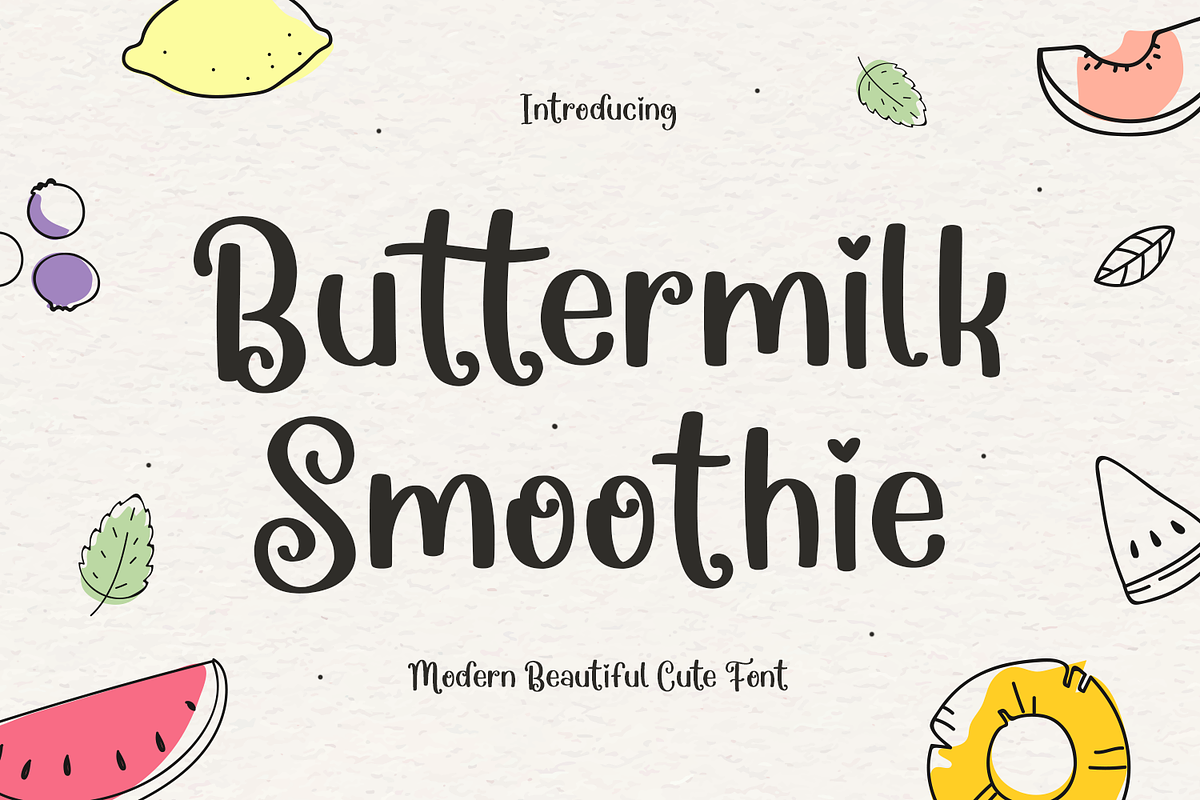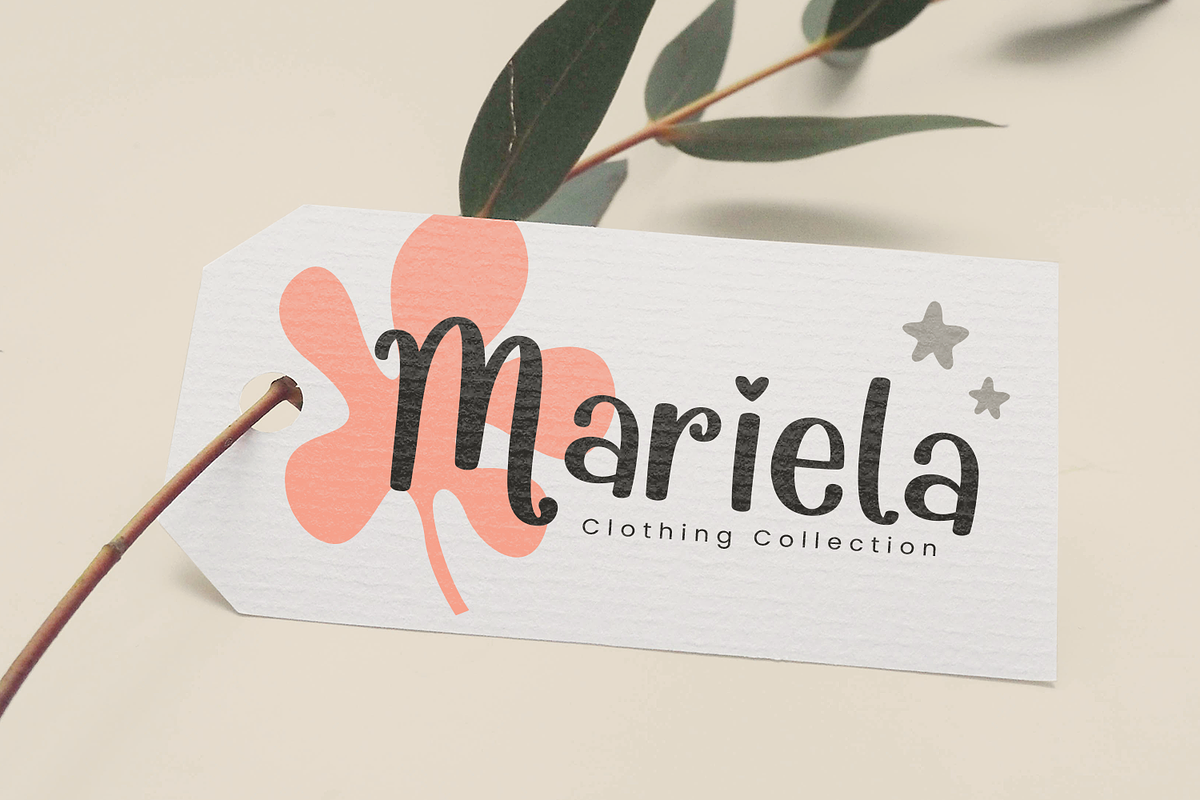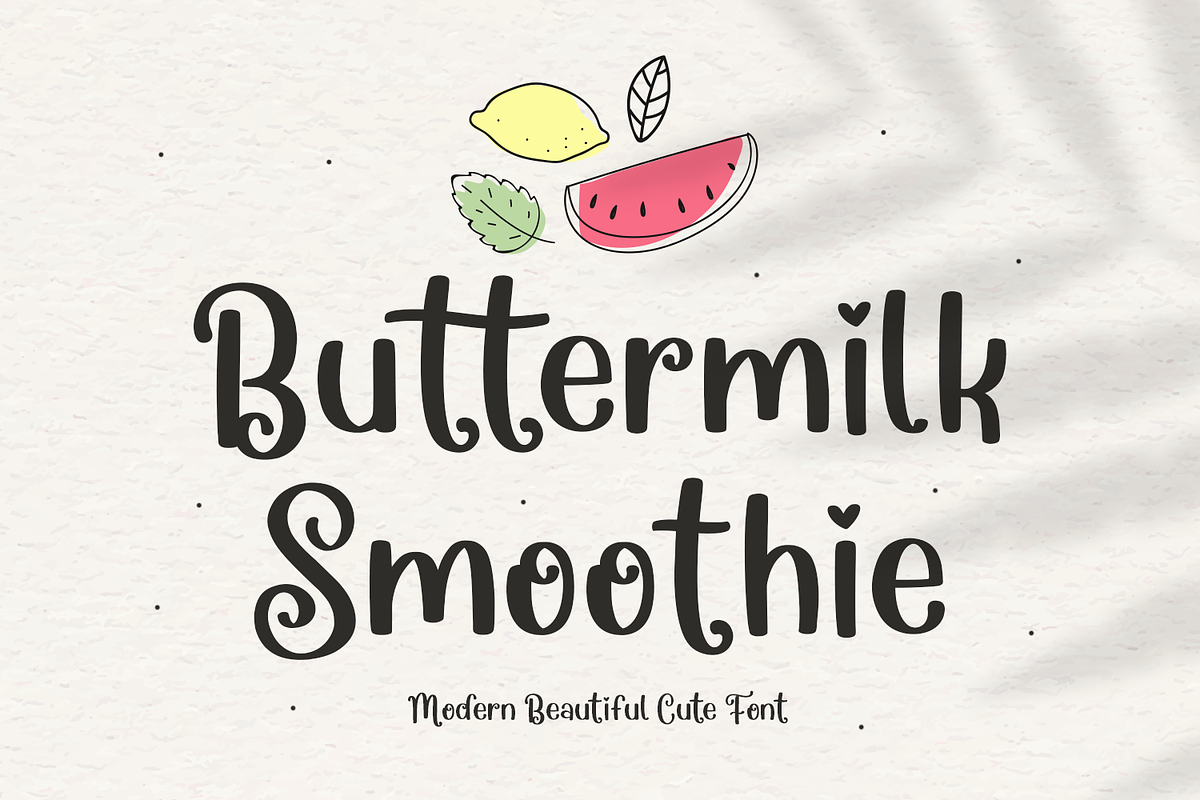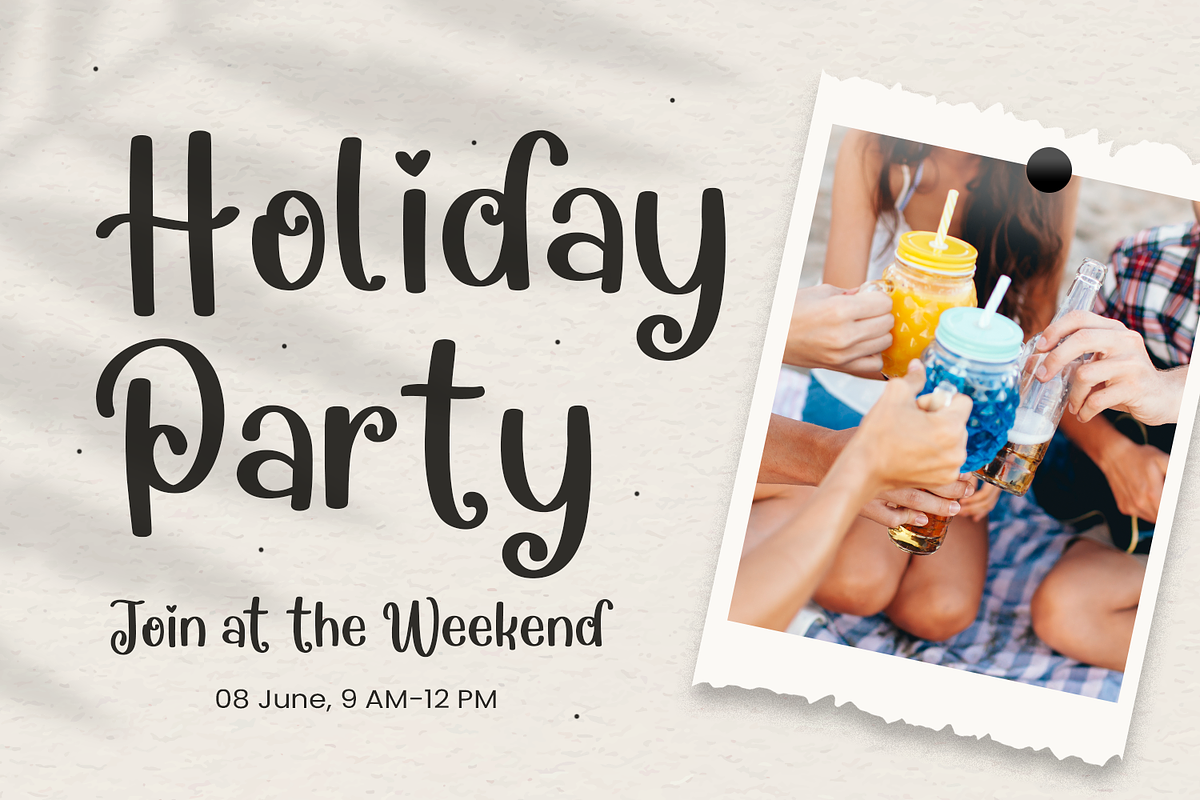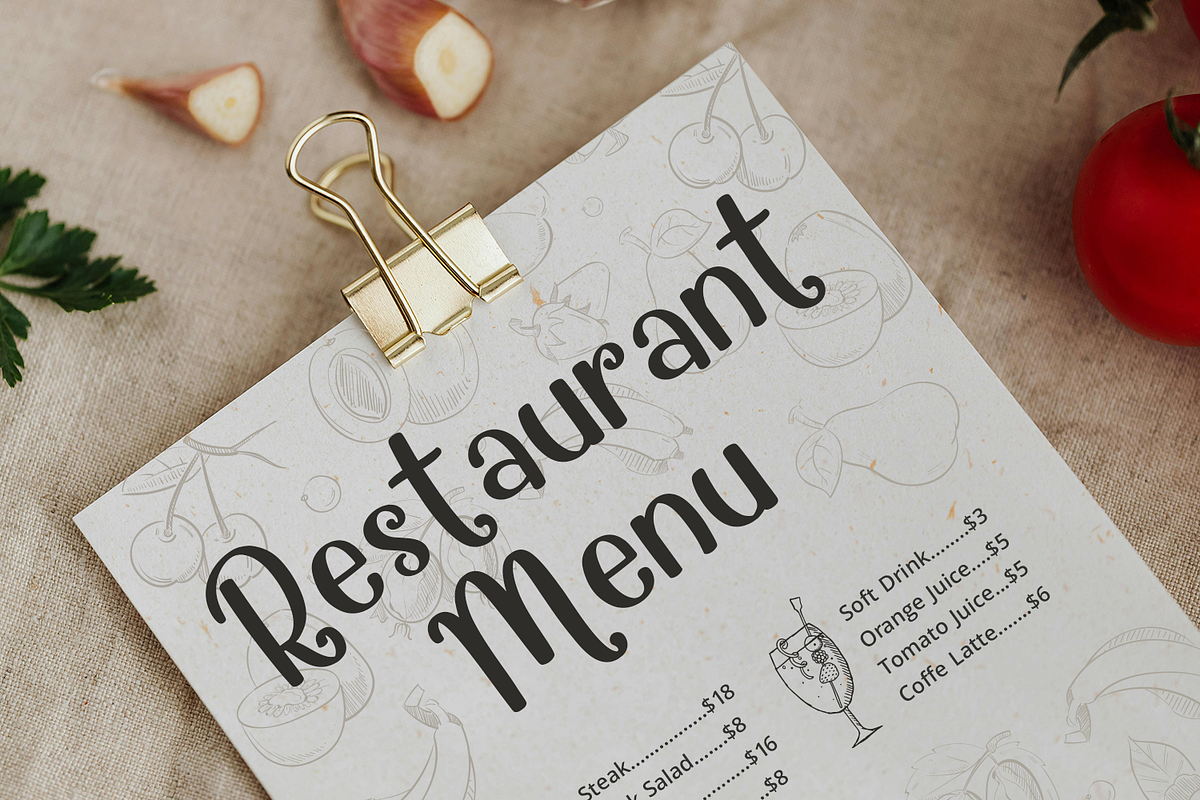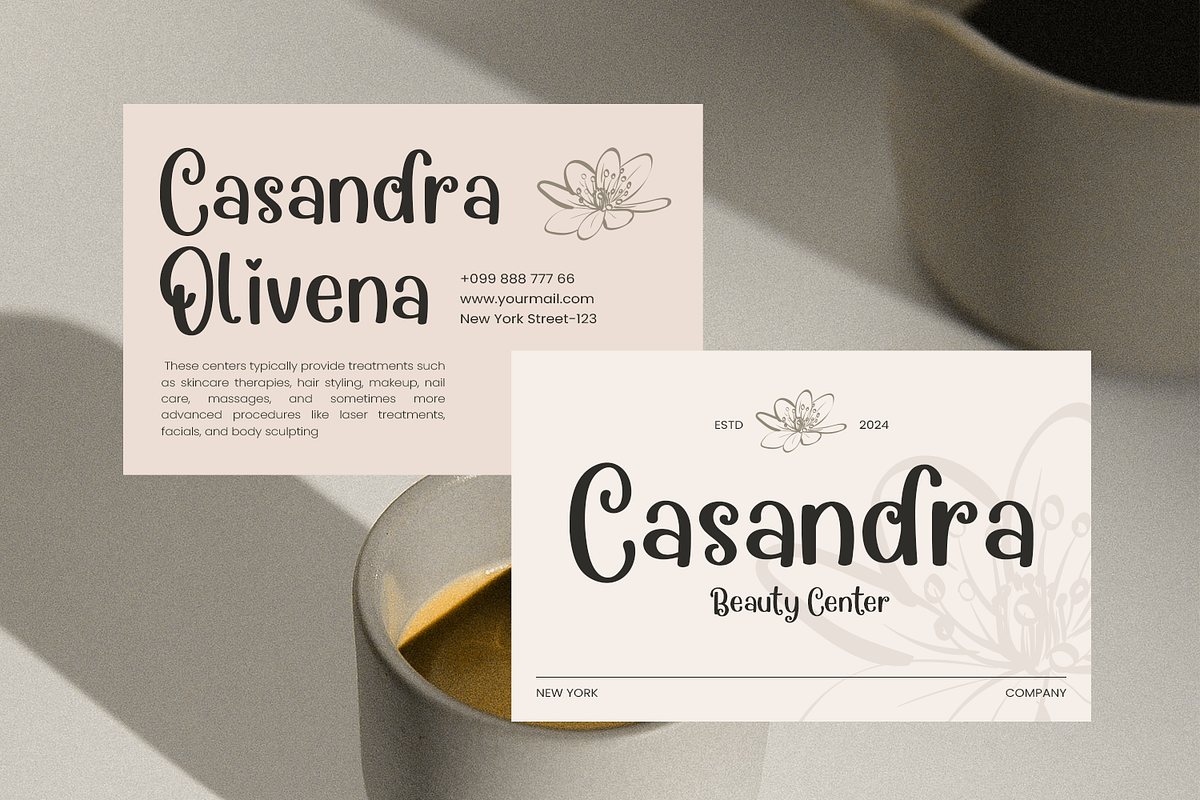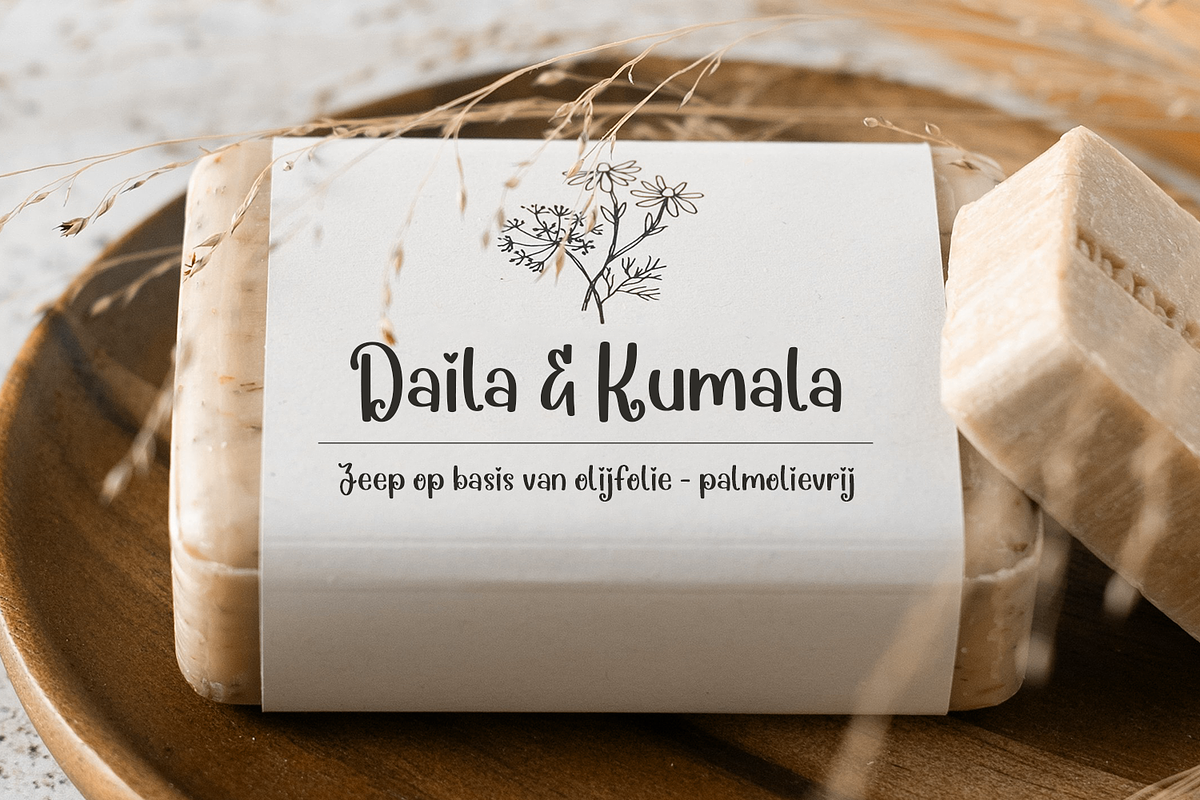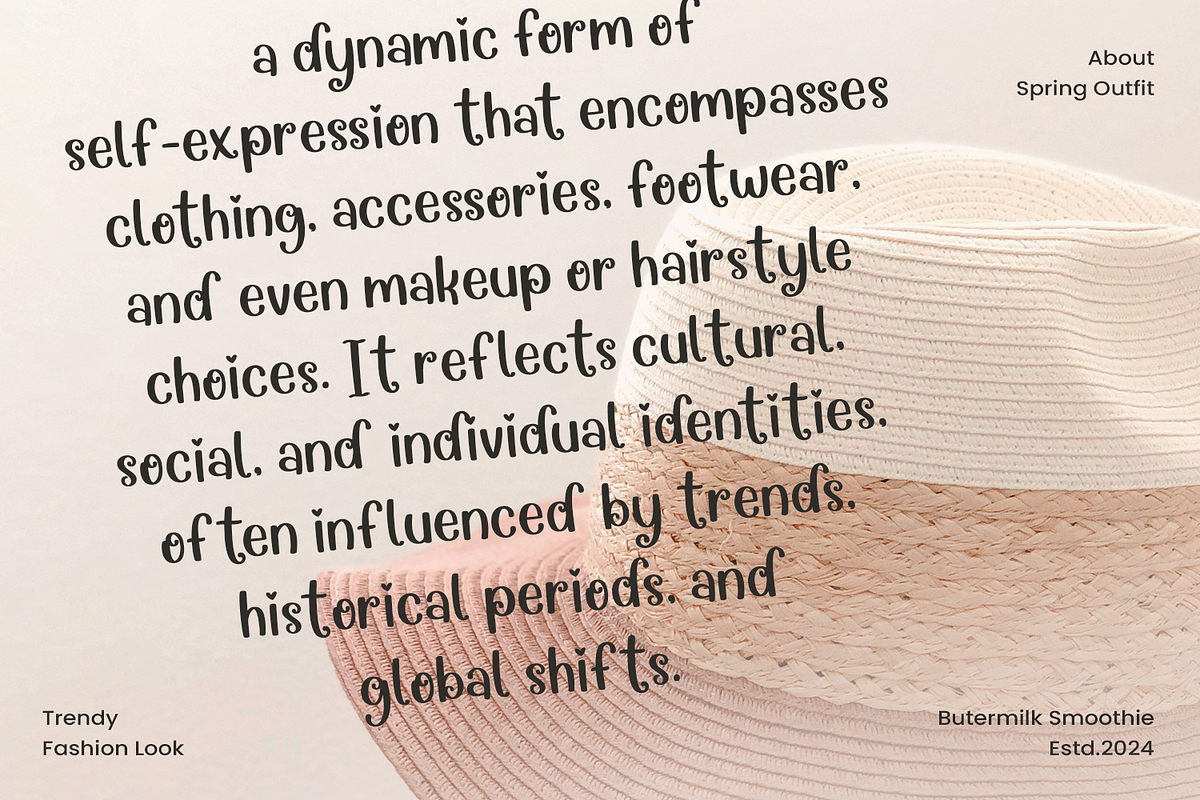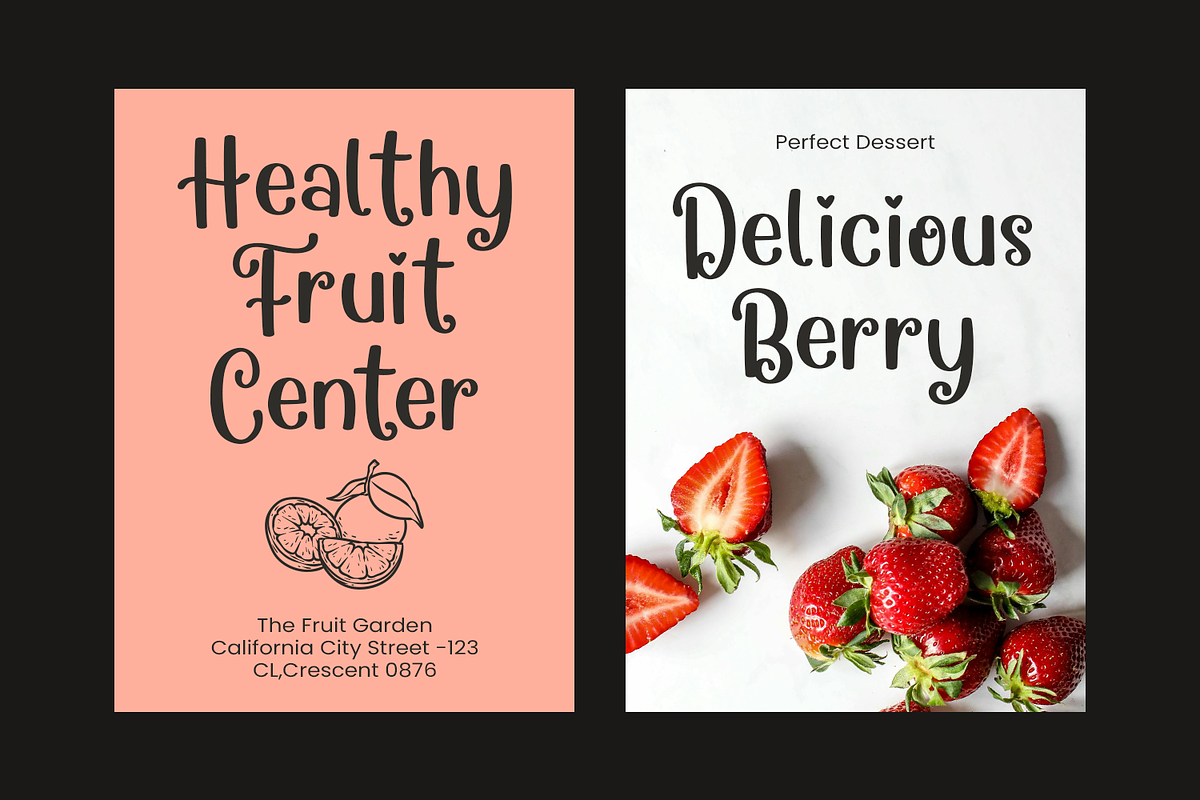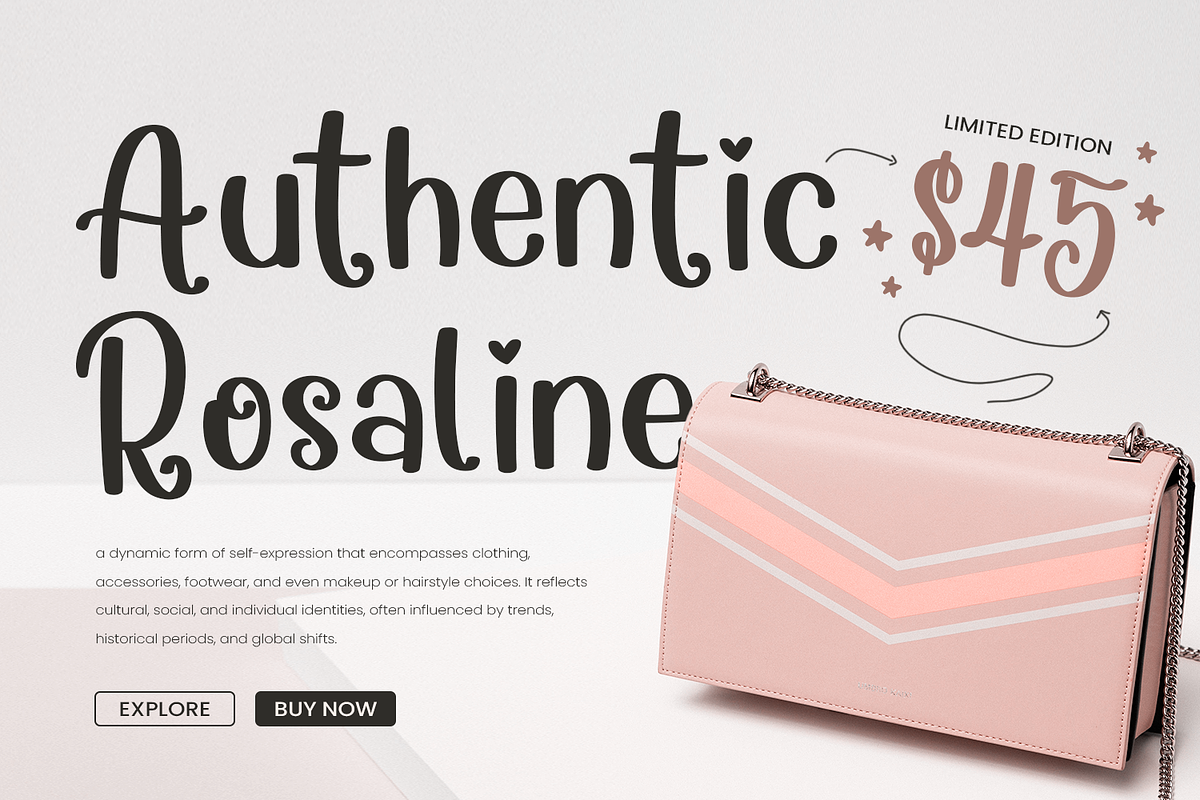
Buttermilk Smoothie
Introducing Buttermilk Smoothie, a delightful handwritten font that exudes charm and warmth. This cute and whimsical typeface is perfect for adding a playful touch to your designs. With its smooth curves and inviting character, Buttermilk Smoothie shines in a variety of applications, from heartfelt quotes to festive posters that celebrate food and drinks. Whether you’re crafting wedding invitations or birthday banners, this font will surely capture attention and bring smiles.
Ideal for all your creative projects, Buttermilk Smoothie is versatile enough to suit any occasion. Use it for Christmas and New Year’s greetings, or to enhance your Easter and Thanksgiving celebrations. This font is not only great for crafting eye-catching posters but also works beautifully on Cricut designs and embroidery projects, making it a must-have for DIY enthusiasts.
Bring a touch of joy to your lettering and SVG creations with Buttermilk Smoothie. Its playful design encourages fun and creativity, allowing you to express your unique style. Each letter is crafted with love, ensuring your messages are both legible and visually appealing, perfect for all your crafting needs.